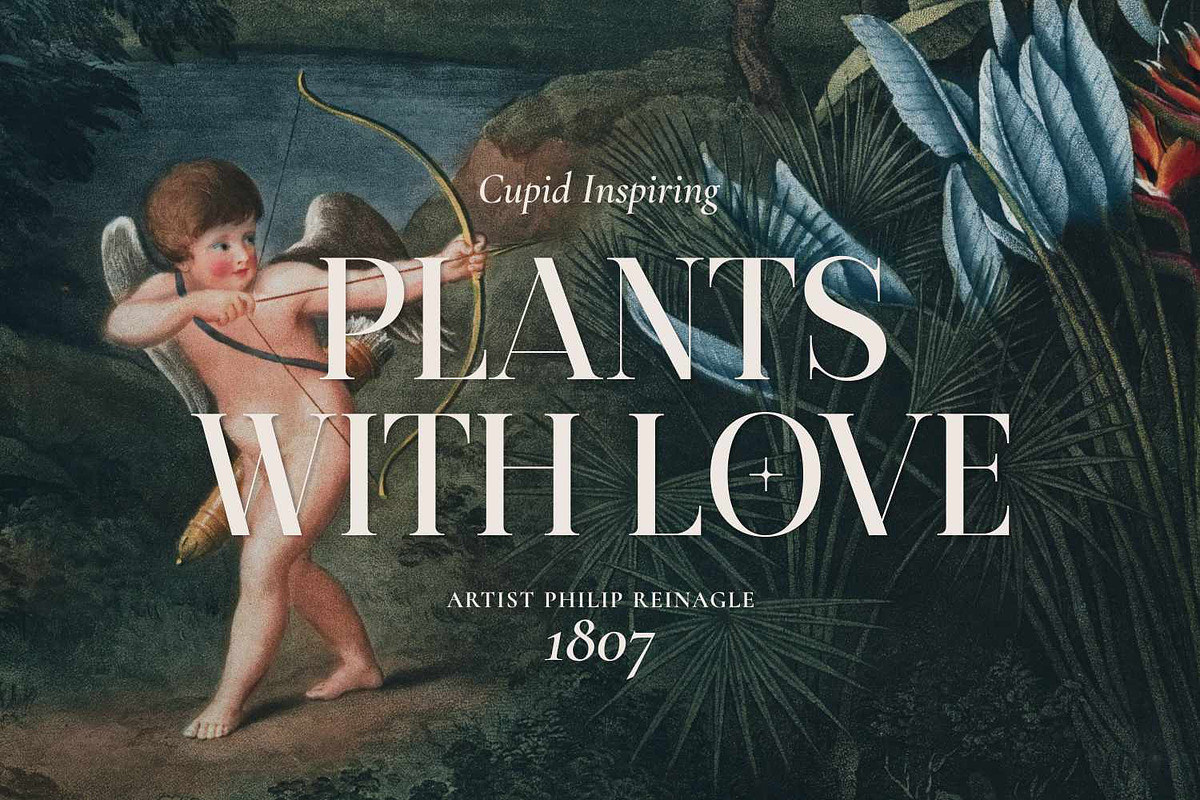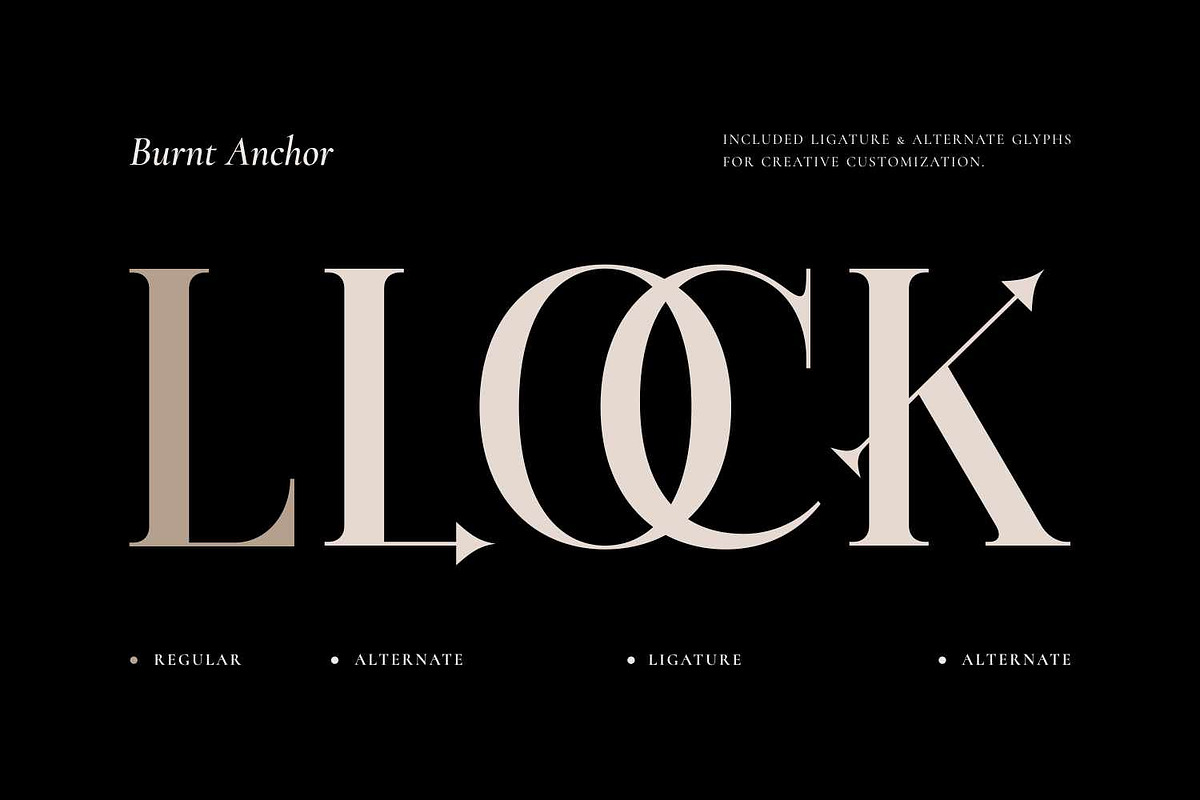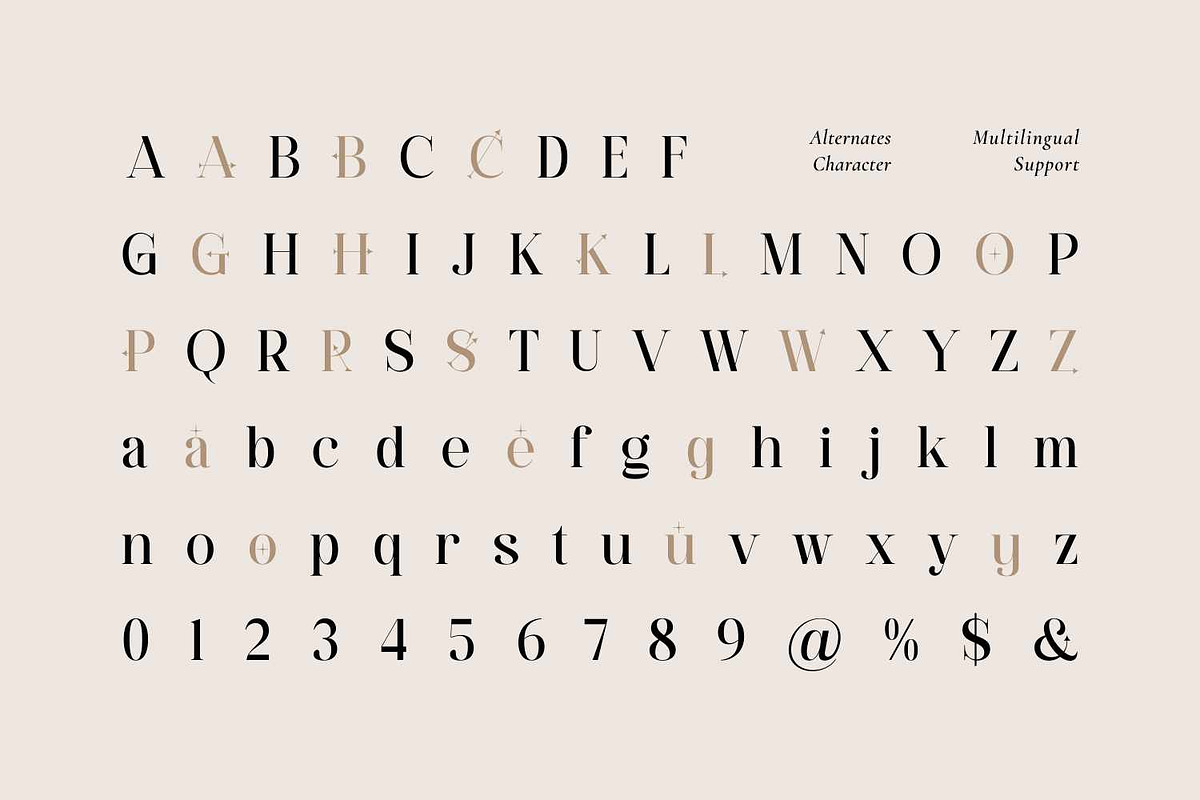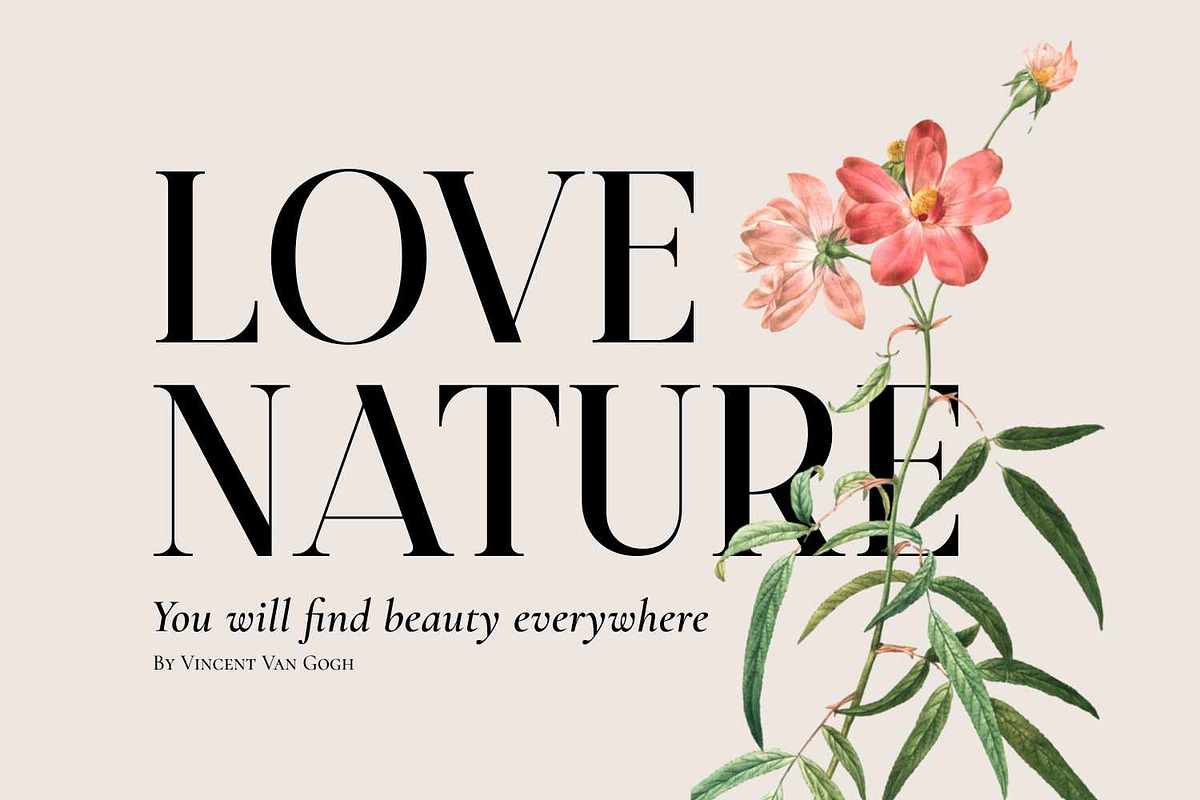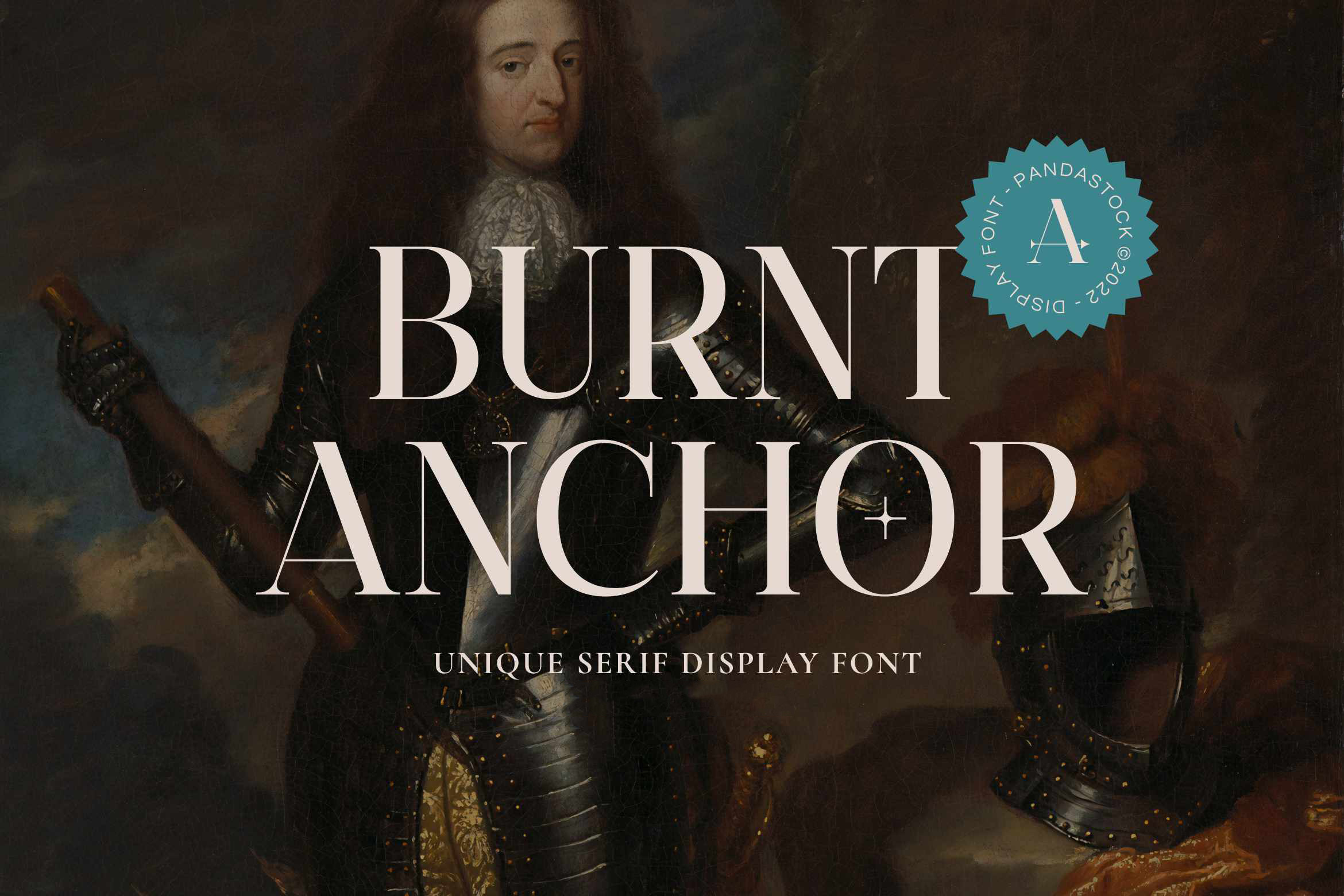
Burnt Anchor - Romantic Serif Font
Discover the timeless sophistication of Burnt Anchor, a stunning serif display font that masterfully blends classic elegance with modern minimalism.
Select letters contain a delicate star and arrows glyph inset within their forms, adding a memorable and distinctive touch to your typography. These captivating alternates, along with a host of elegant ligatures, allow for incredible customization, ensuring your designs stand out.
With its sharp, clean serifs and beautifully balanced proportions, Burnt Anchor is perfect for high impact headlines, luxury branding, editorial design, and sophisticated logos. Its comprehensive character set includes uppercase, lowercase, numerals, punctuation, and extensive multilingual support, making it a versatile powerhouse for designers worldwide.
- Uppercase and Lowecase Characters.
- Numerals and Punctuations.
- Alternates and Ligatures.
- Multilingual Support.